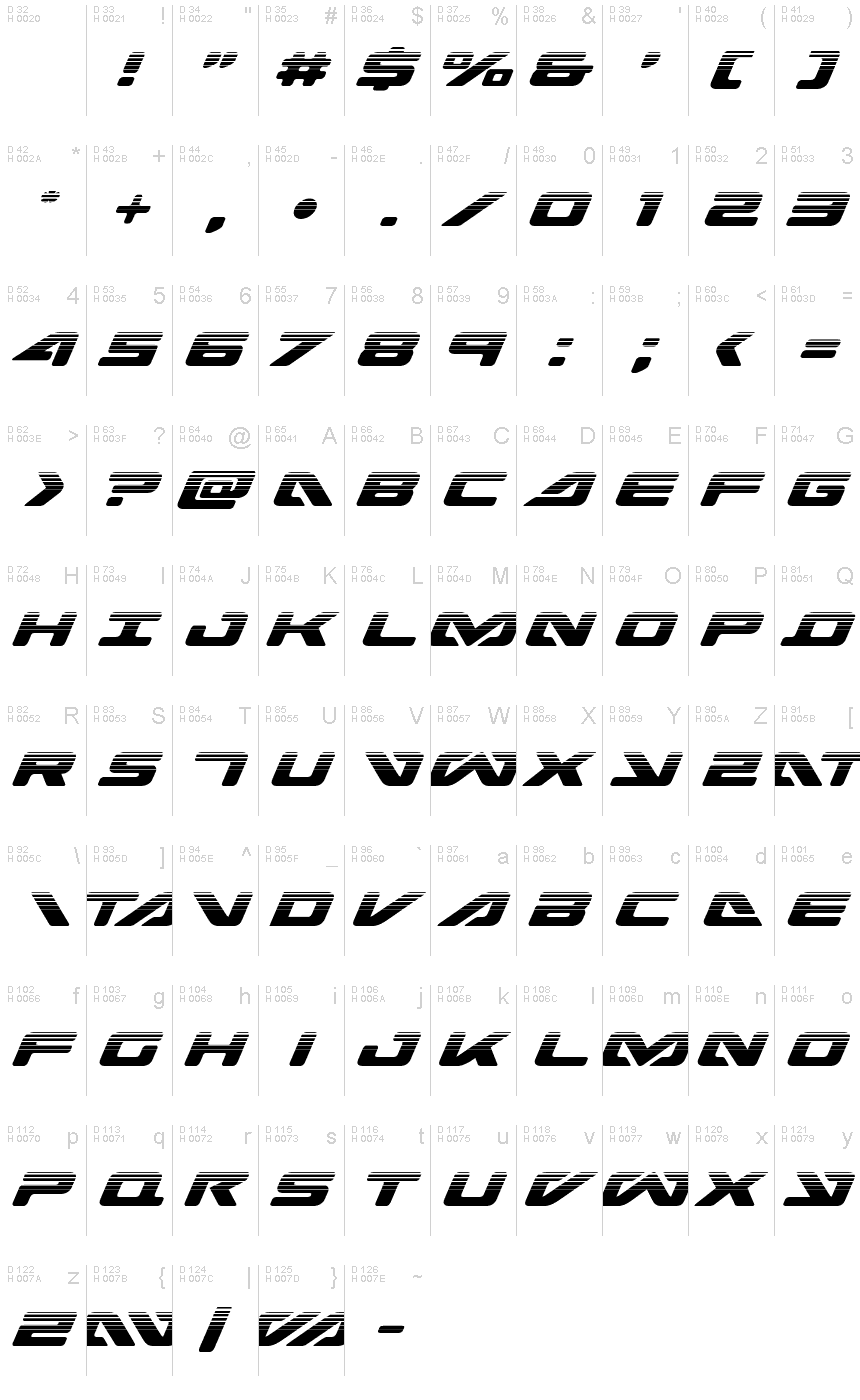
Looking for a futuristic display font that will make your projects stand out? Look no further than Sea-Dog Halftone Super-Italic! Created by renowned font designer Iconian Fonts, this extra-bold and extra-expanded typeface is perfect for projects that demand attention. Whether you're designing a poster, creating branding materials or building a website, Sea-Dog Halftone Super-Italic will ensure that your message is conveyed in a unique and visually striking way. So why settle for ordinary fonts when you can make your mark with Sea-Dog Halftone Super-Italic?
Sea-Dog Halftone Super-Italic